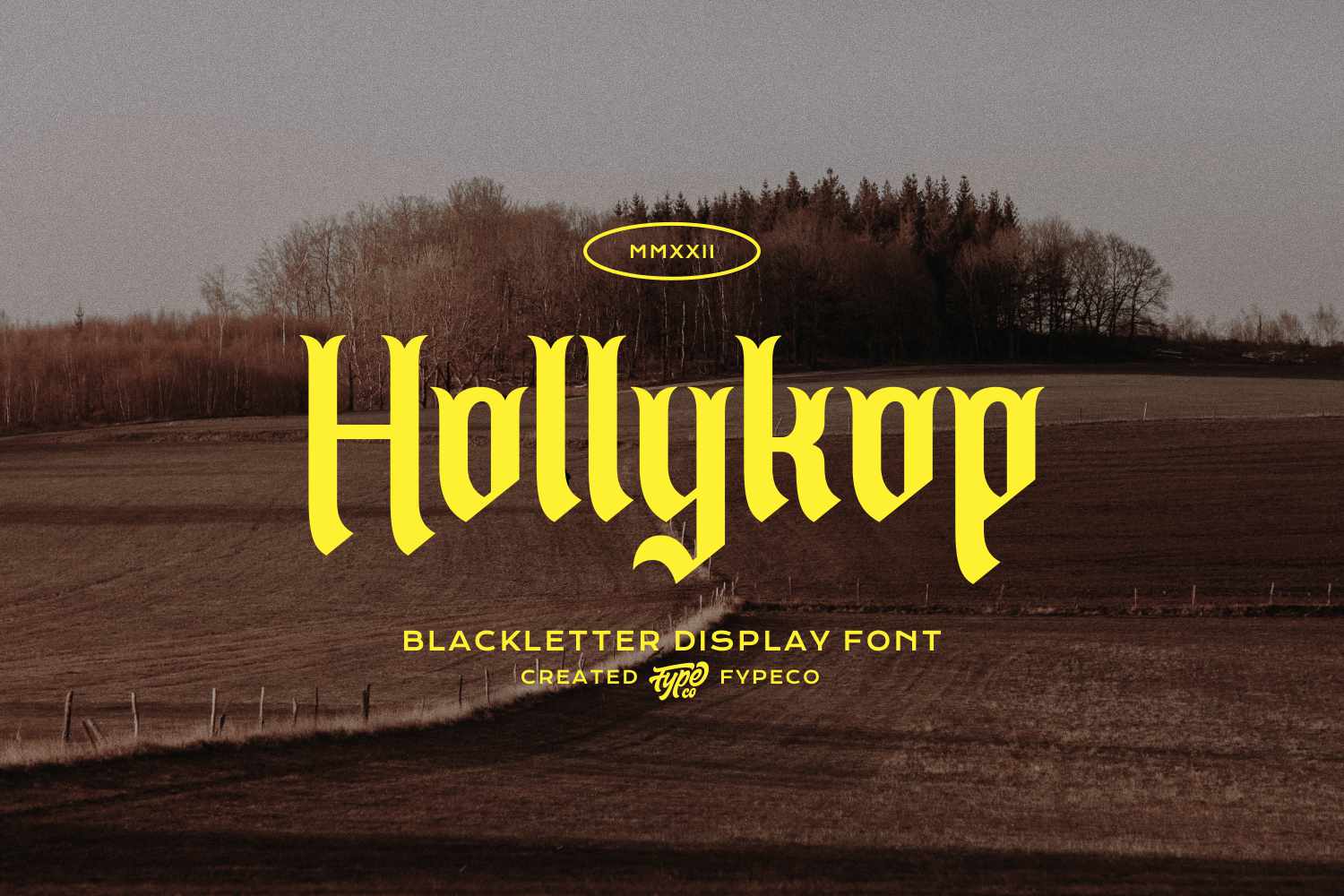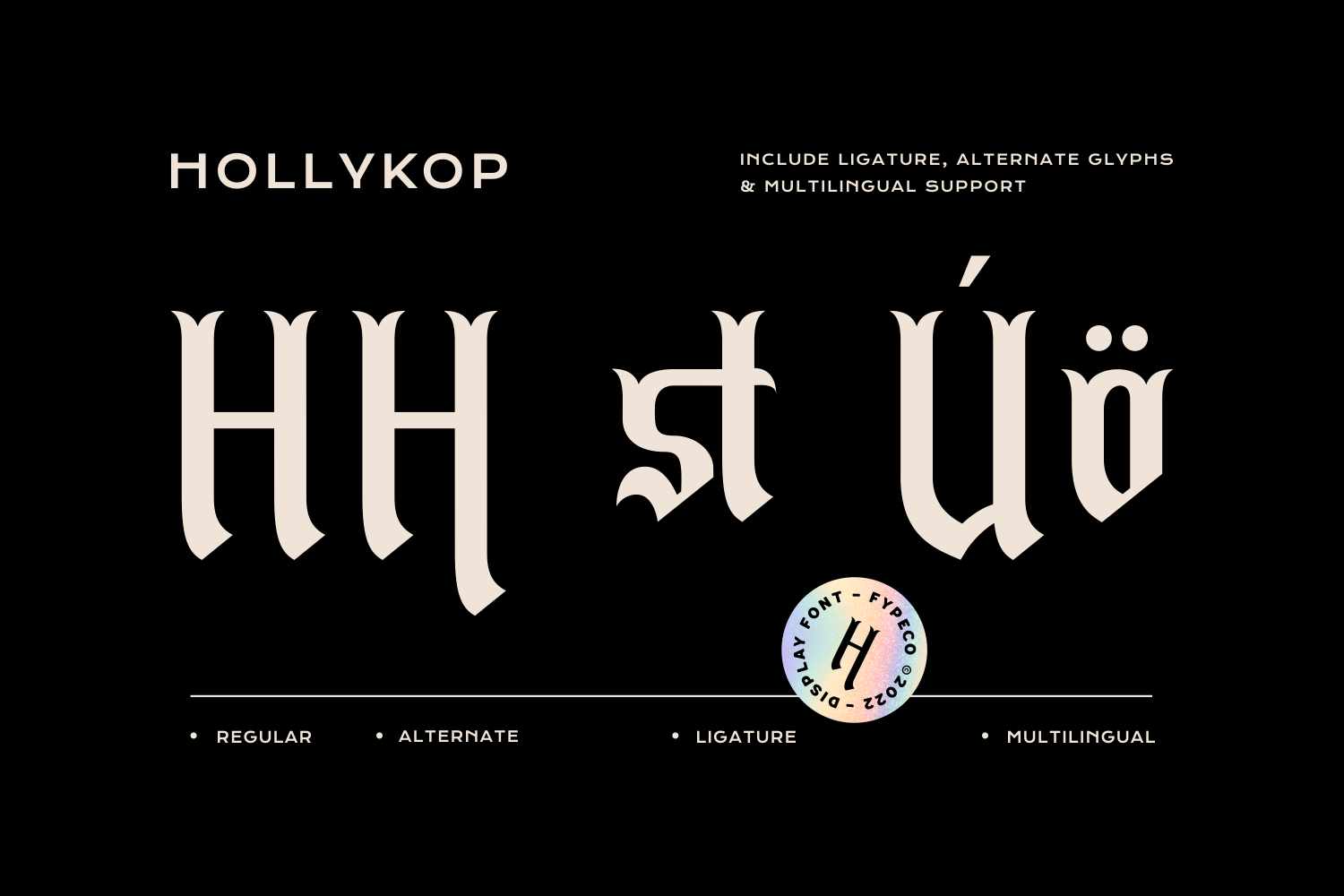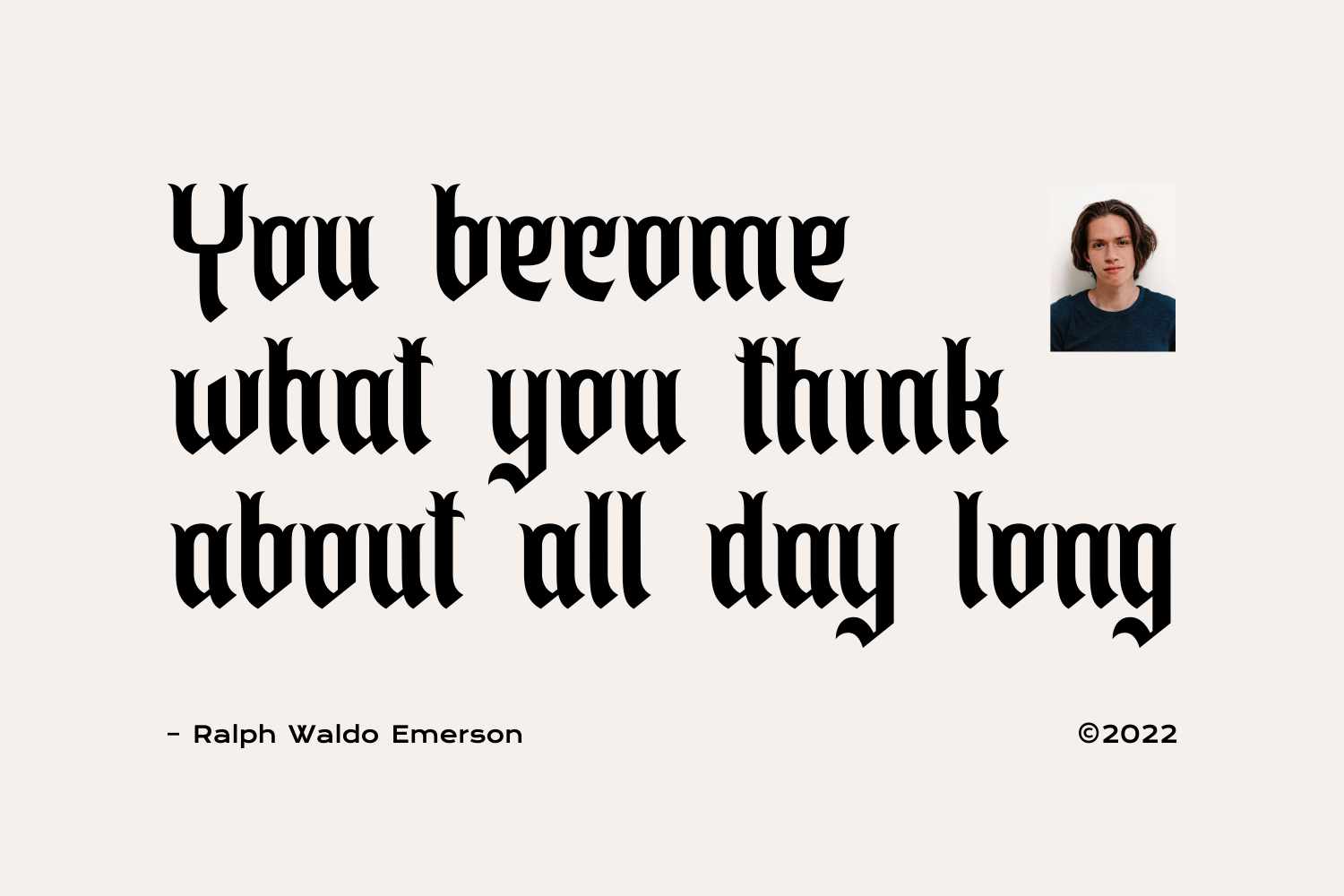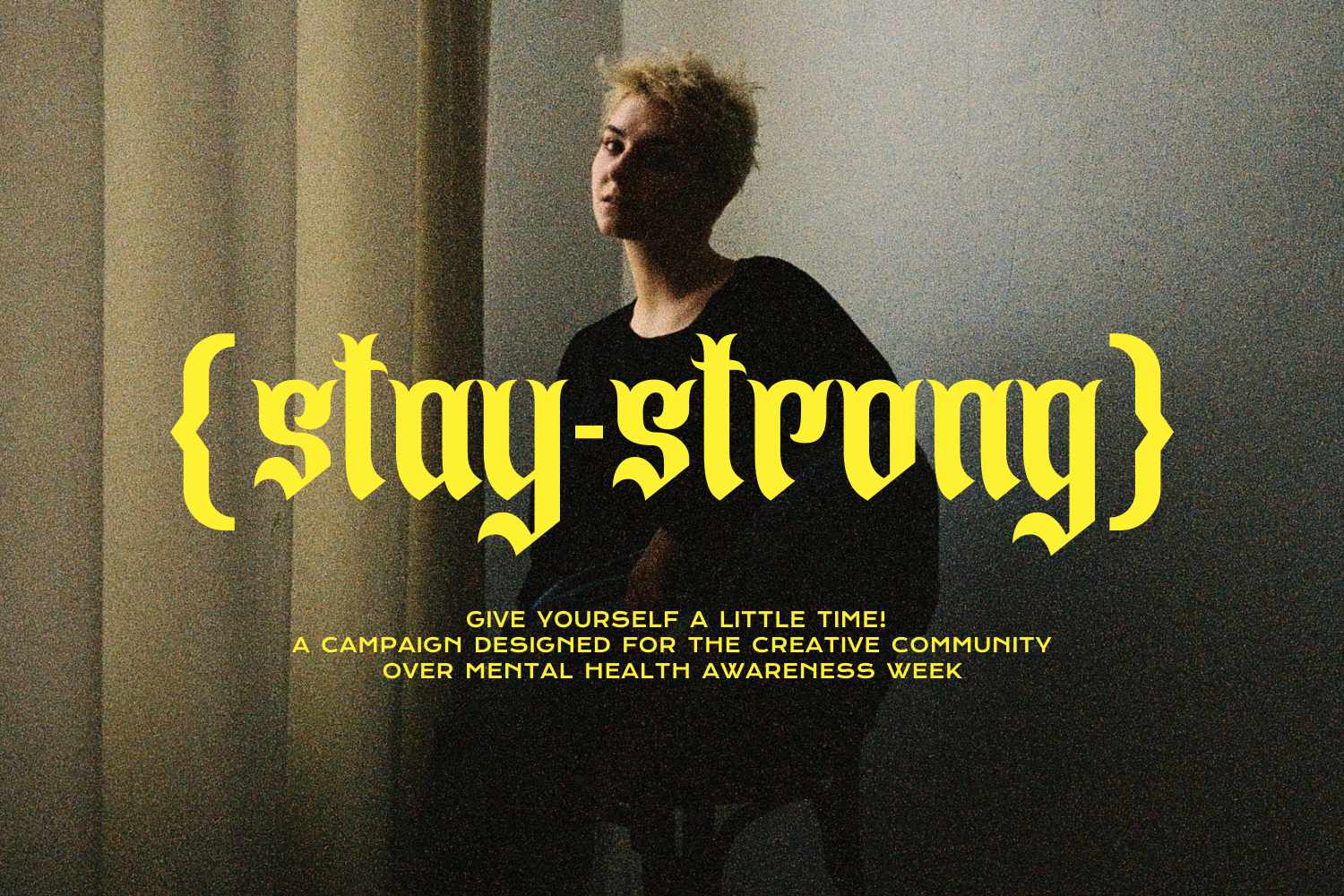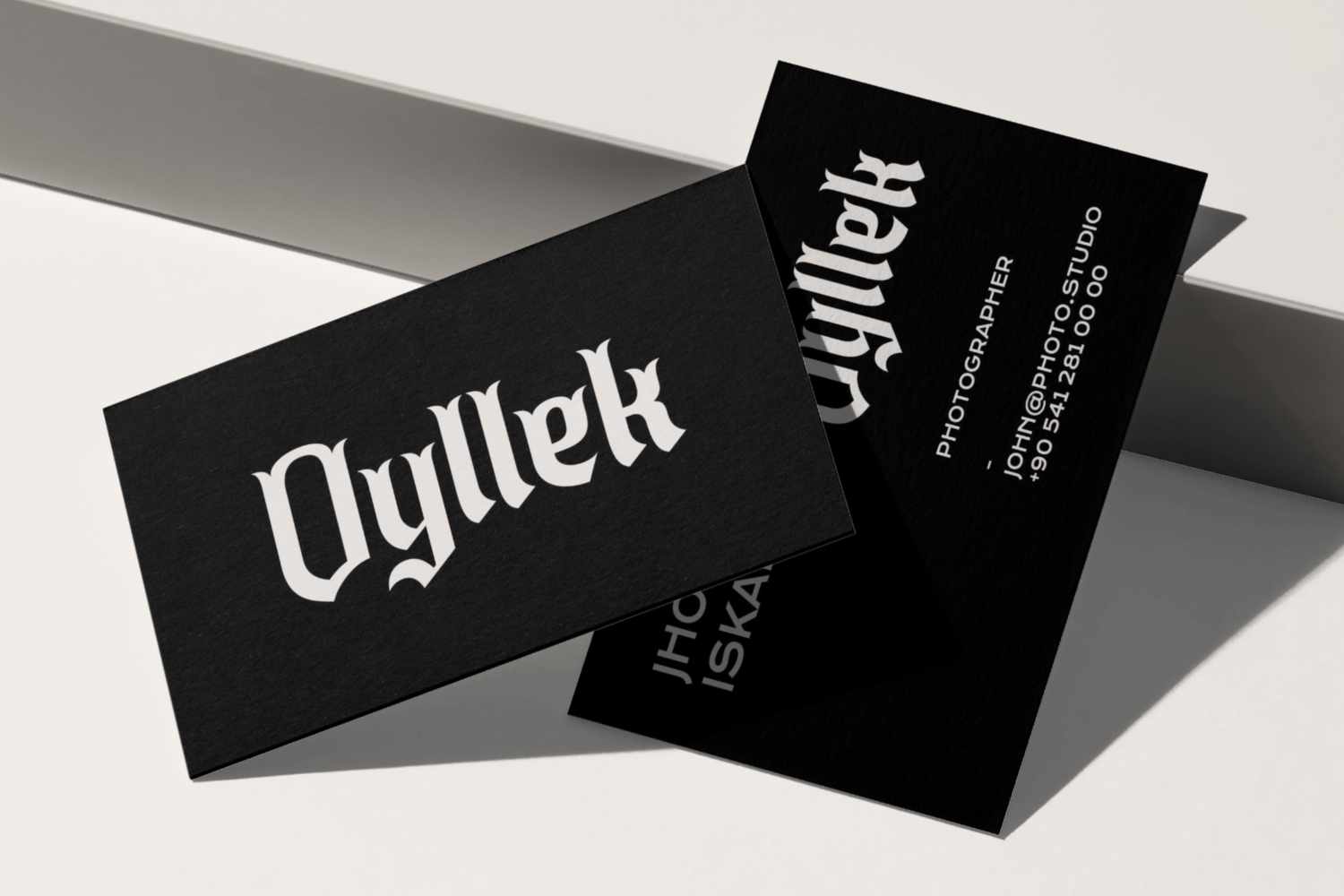
Hollykop
Hollykop is a striking blackletter display font that fuses medieval tradition with a bold contemporary style. With its tall letterforms, sharp edges, and dramatic rhythm, this typeface is perfect for branding, posters, apparel, packaging, and logos that need a fearless and authoritative look. Its gothic essence mixed with modern refinement makes Hollykop a versatile choice for both classic and edgy design projects.
Complete with stylish alternates, ligatures, and multilingual support, Hollykop gives designers the freedom to craft unique and impactful typography. From music covers, tattoo-inspired visuals, and craft beer labels to editorial layouts and merchandise branding, this font ensures every design stands out with confidence and originality. Hollykop embodies power, creativity, and timeless blackletter aesthetics.